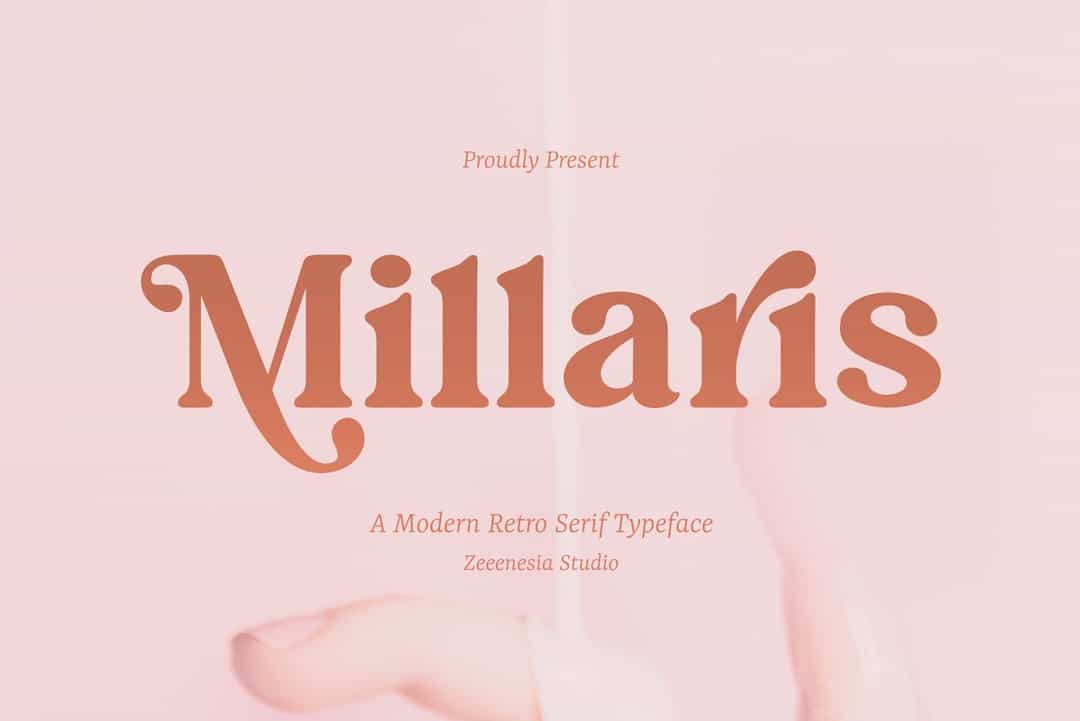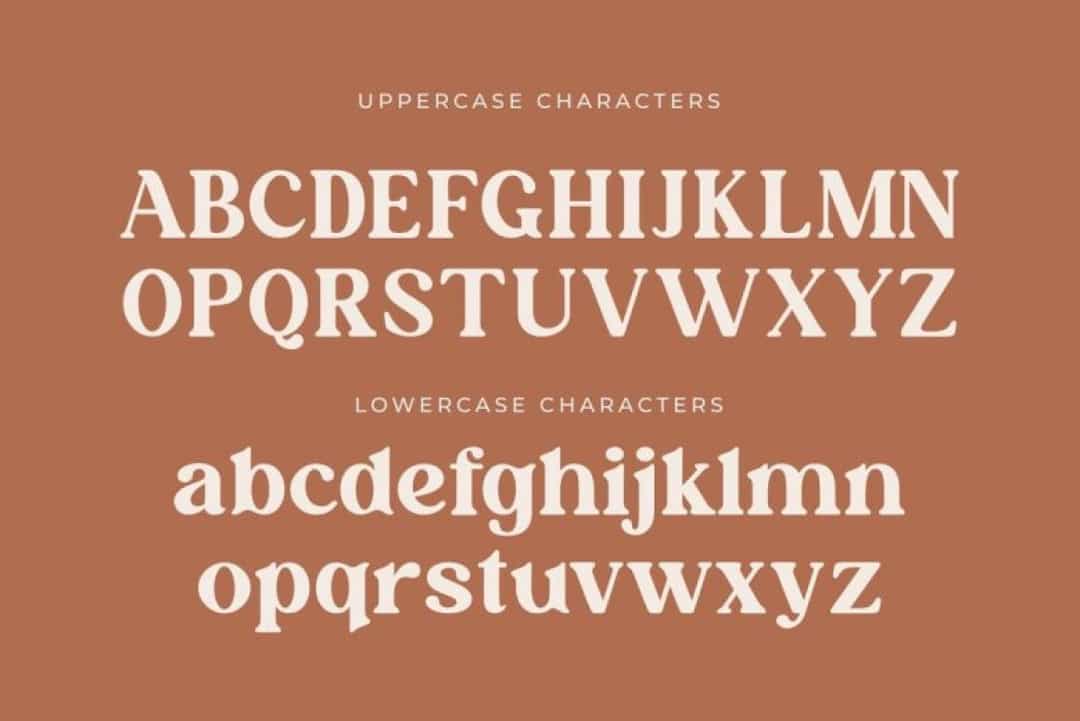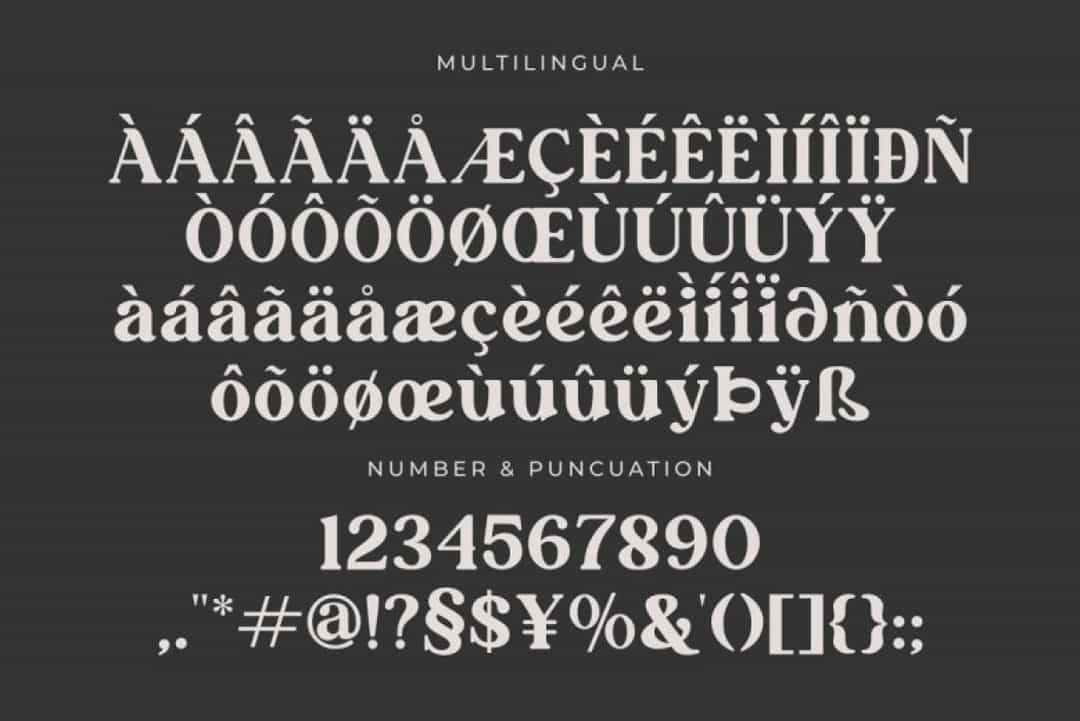
Millaris is an elegant and modern serif typeface. Perfect for branding, advertising packaging, logotypes, headlines and titles in large sizes; perfect for editorial use; I created more variations to give this font its stunning beautiful appearance; built using open type features so your work will come out beautifully! Bright Almond was also built using this typeface – the result being even better results in any given situation!